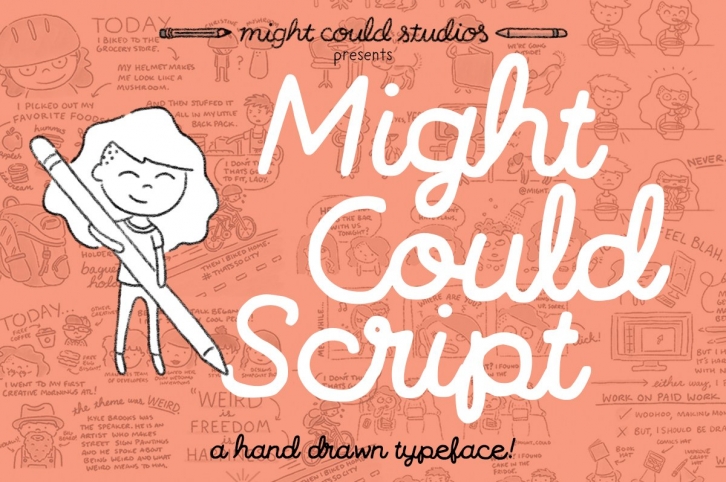
Might Could Studios presents.... Might Could Script!
I recently released a hand drawn sans serif font based on my handwriting (which you can see here: https://creativemarket.com/might_could/974870-Might-Could-Sans), but I also draw lots of script hand writing for my comics, books, and projects too! So now I've made Might Could Script!
Might Could Script is hand drawn in my own handwriting, and is a vectorized font. It's perfect for comics, graphic novels, books, invitations, business cards, or any other designer-y project you've got going on!
Might Could Script:
- Round and smooth for a hand drawn feel
- Connected letters and smooth transitions
- Looks great in title case and uppercase
- Couples really well with a lovely sans serif, as I do in most of my promotional materials.